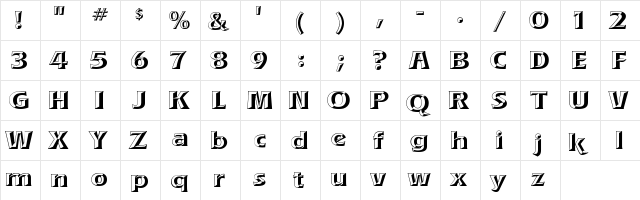
A&S Marquee Chisel Regular
| Foundry | Art&Sign Studio/Signfonts |
| Designer | Steve Contreras |
Design Context for A&S Marquee Chisel Typeface
A&S Marquee Chisel offers clean, dependable letterforms without strong stylistic allegiance, making it a practical choice for designers who need flexibility.